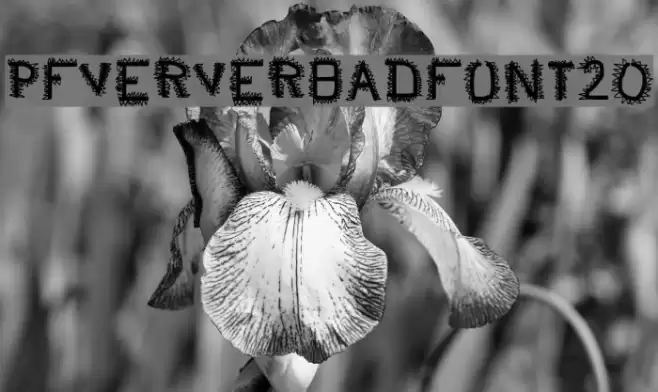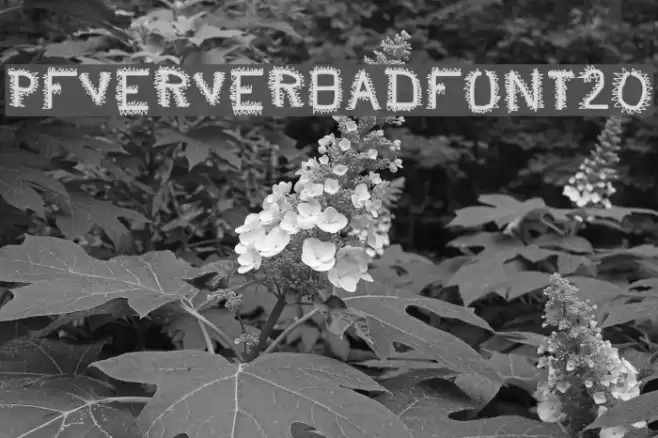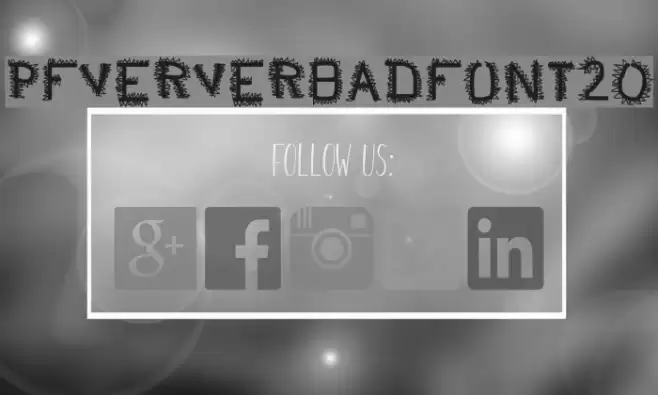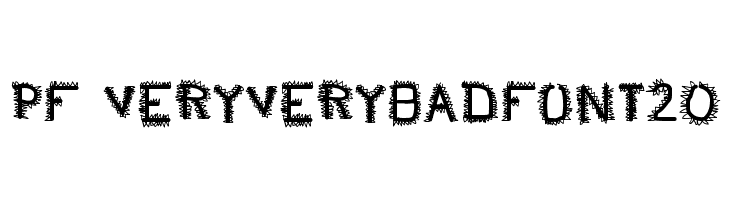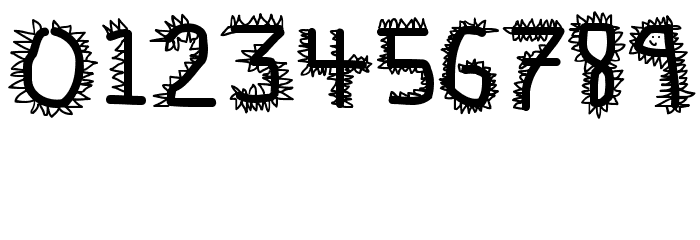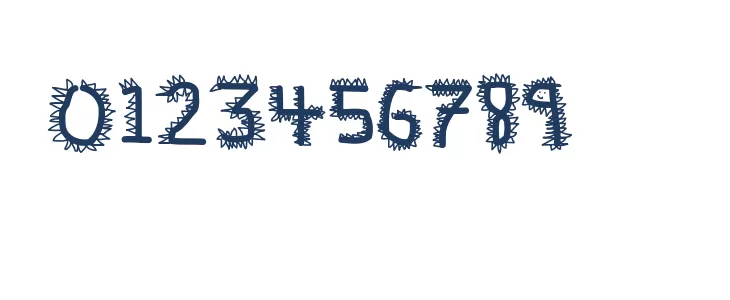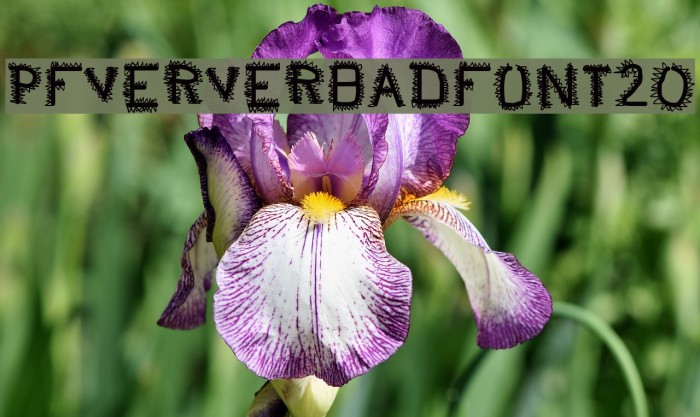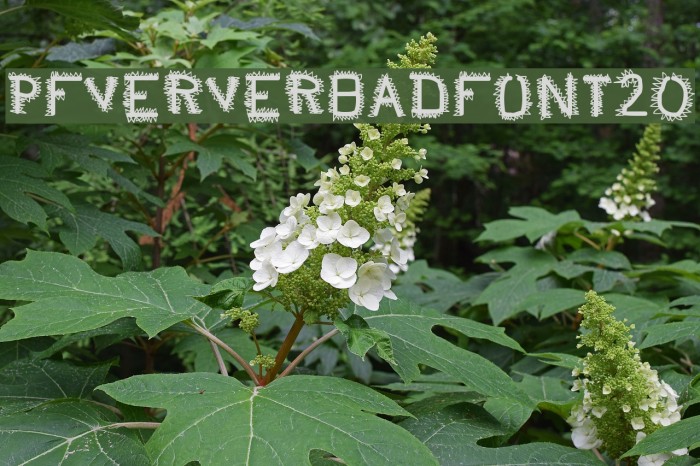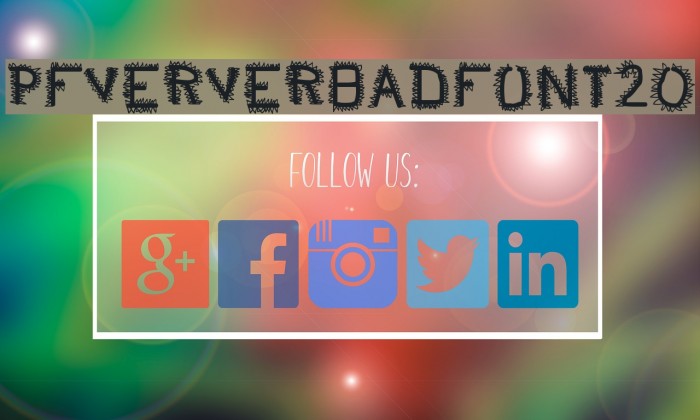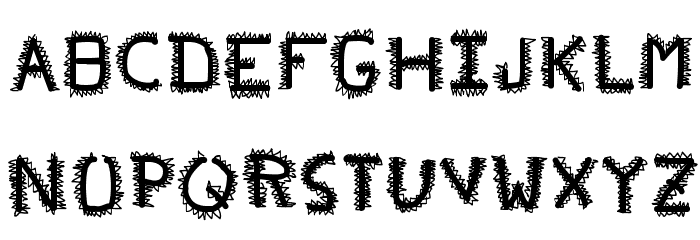
pf_veryverybadfont20 Font
pf_veryverybadfont20 Description
This font features a highly decorative and jagged design, with each character surrounded by sharp, spiky edges that give it an aggressive and chaotic appearance. The letters are bold and have a hand-drawn quality, making them stand out with a unique, edgy style. The font maintains a consistent height across all characters, but the irregular outlines create a sense of movement and energy. This design is eye-catching and unconventional, suitable for projects that aim to convey a sense of rebellion or nonconformity.
A bold, jagged, and spiky decorative font with an edgy, chaotic style from Crazy fonts.
- Proposed Projects: Ideal for punk rock album covers, edgy posters, Halloween-themed designs, or any project needing a rebellious aesthetic.
- Use Case: Logos, Posters, Headlines